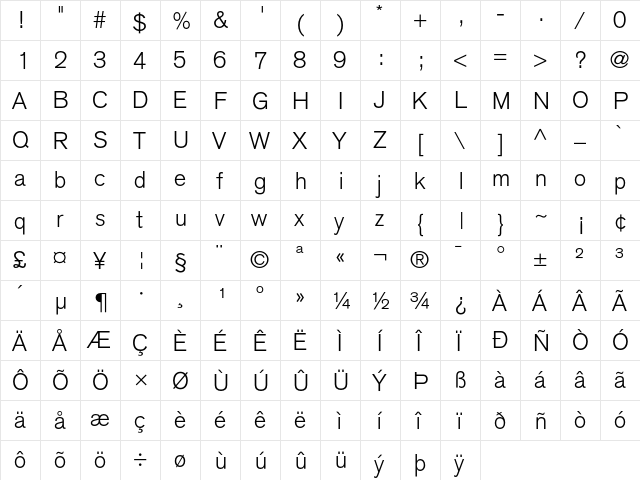
AkzidenzGrotesk Light Font Preview
AkzidenzGrotesk Light
AkzidenzGrotesk Light Font Details
Design Context for AkzidenzGrotesk Typeface
AkzidenzGrotesk has the quiet confidence of well-executed sans-serif typography: versatile, unobtrusive, and dependable at any size. The delicate stroke weight brings airiness and refinement to layouts.
Ideal for fashion and beauty branding, minimal editorial layouts, and premium digital experiences.
Font Pairing: Pair AkzidenzGrotesk with a medium or bold serif for headlines — the weight contrast creates an elegant, high-end feel.
Pro Tip: Avoid using AkzidenzGrotesk at very small sizes where its slender strokes can disappear. It performs best at medium to large sizes.